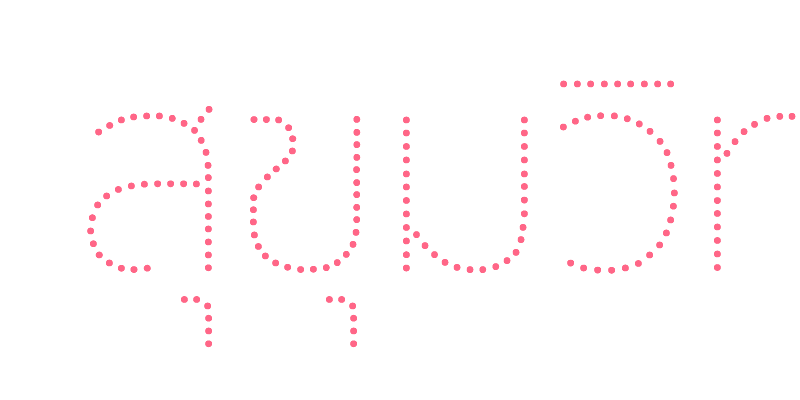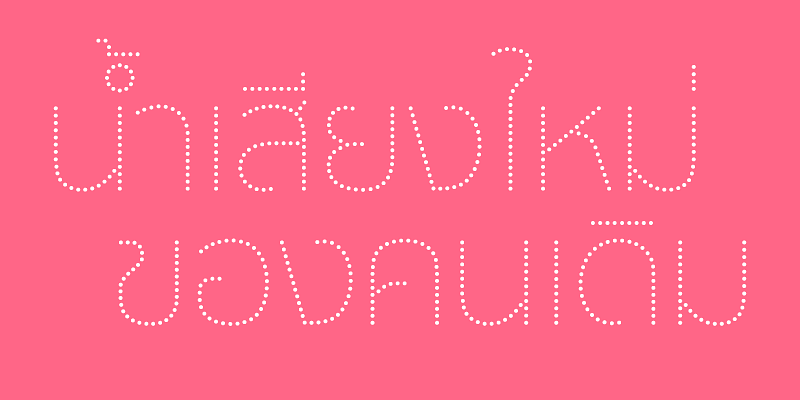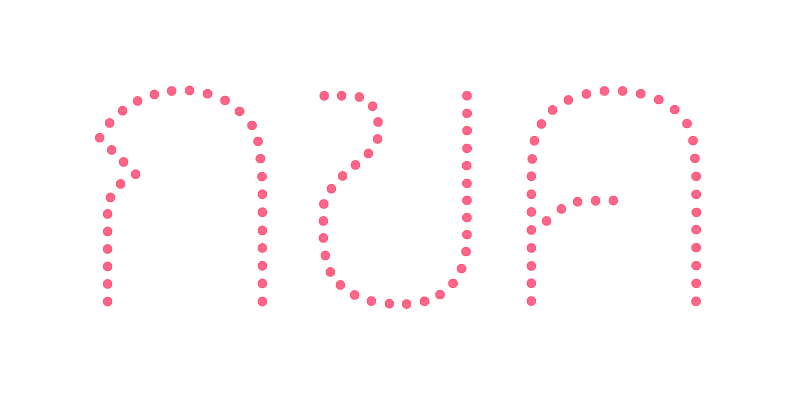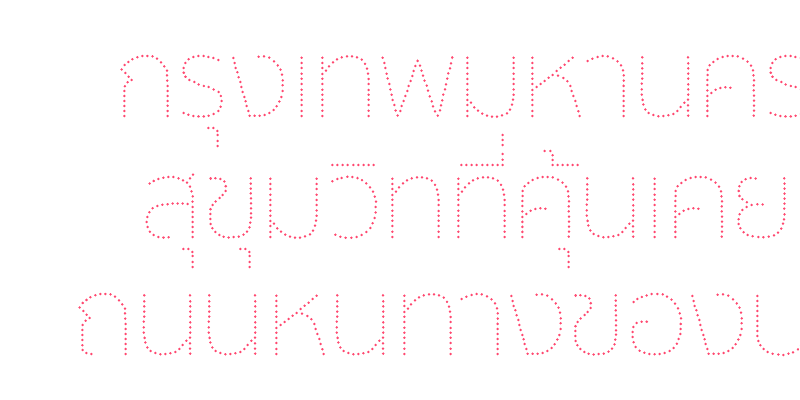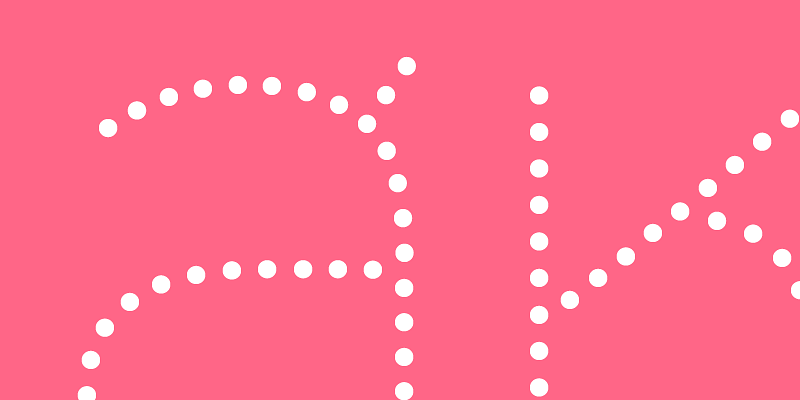
With the same skeleton and proportion as the well-known ‘Sukhumvit’, ‘Sukhumvit Dot’ is a new voice for the family. It is suitable for use in both casual and formal occasions.